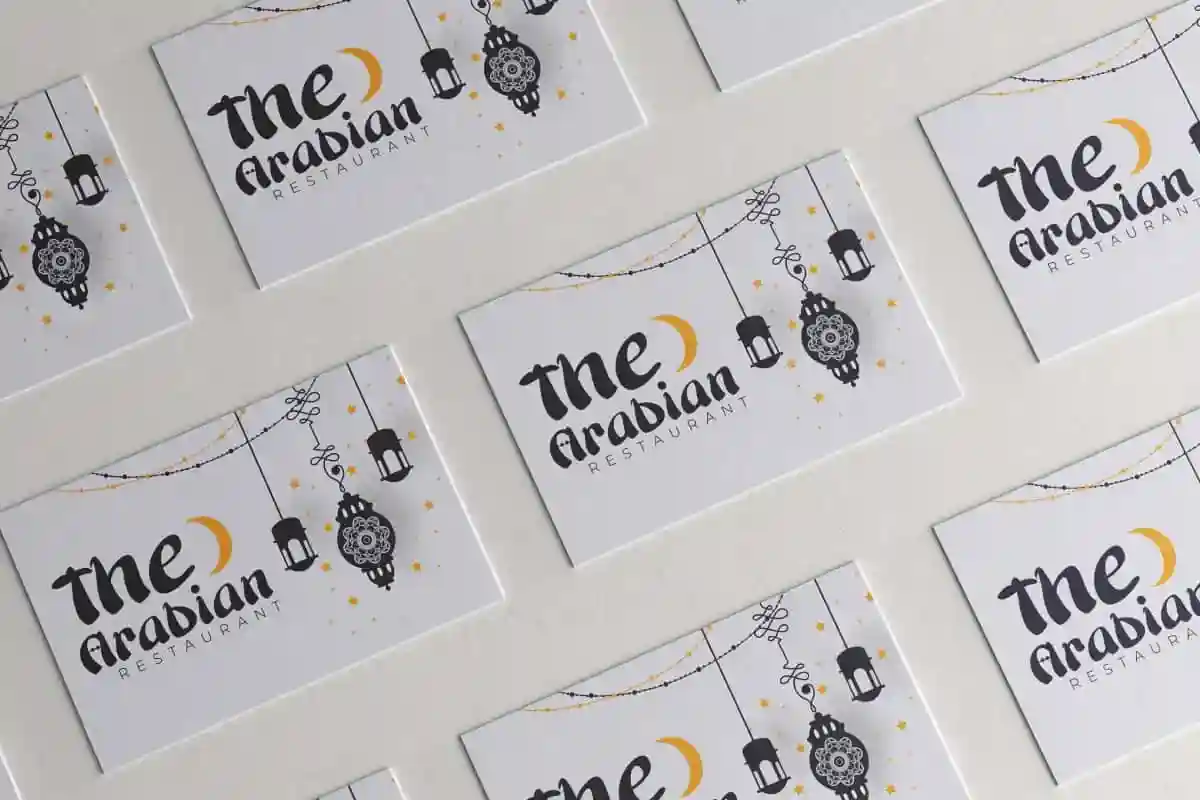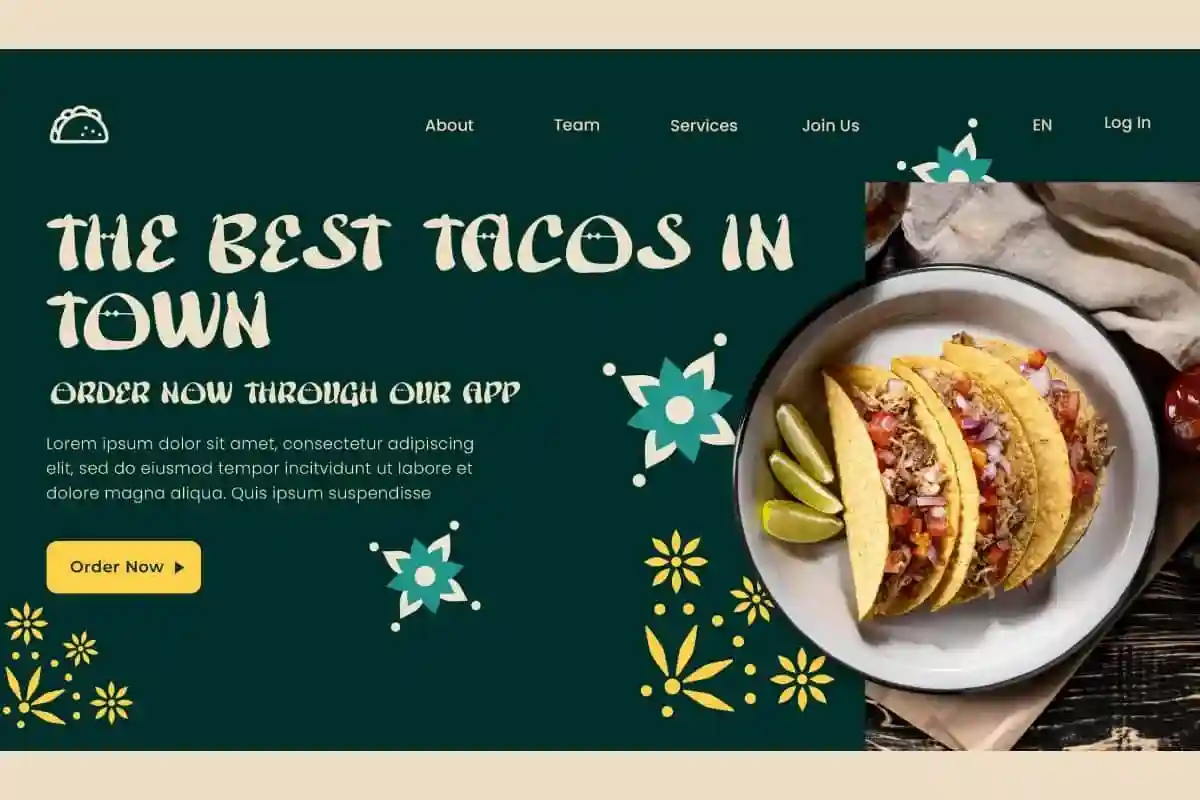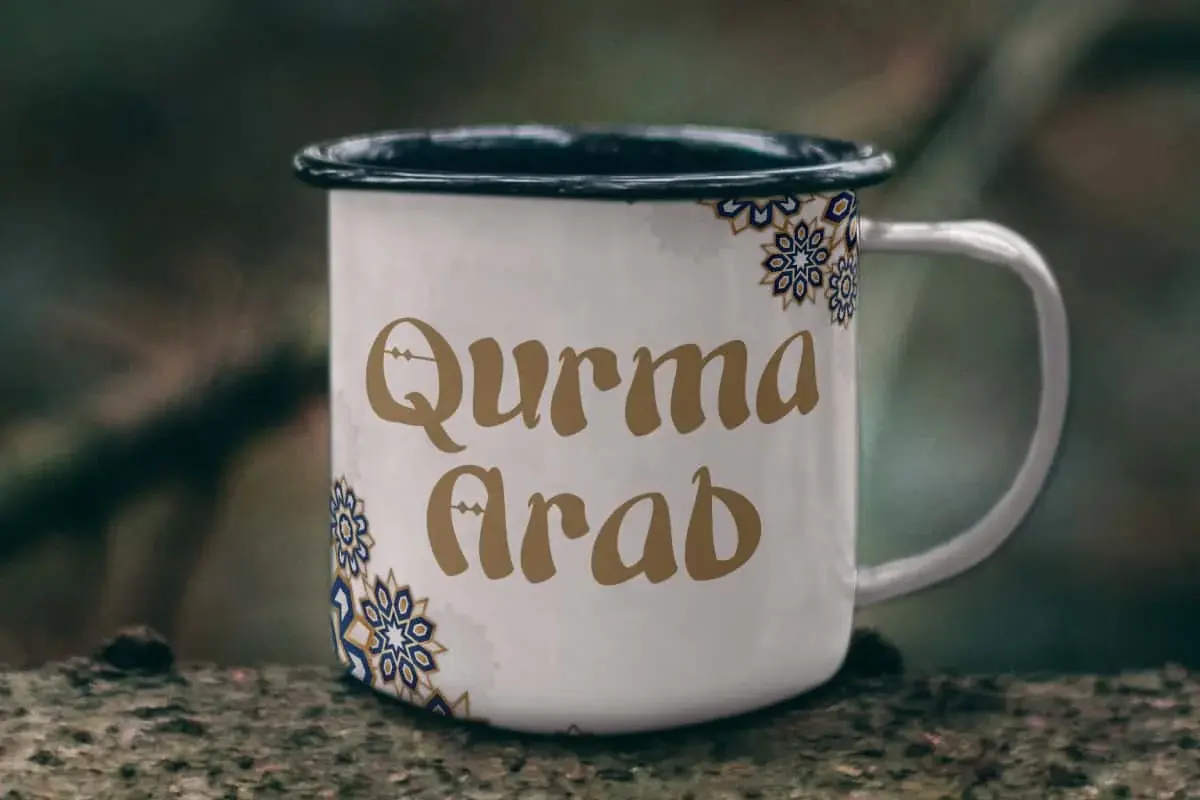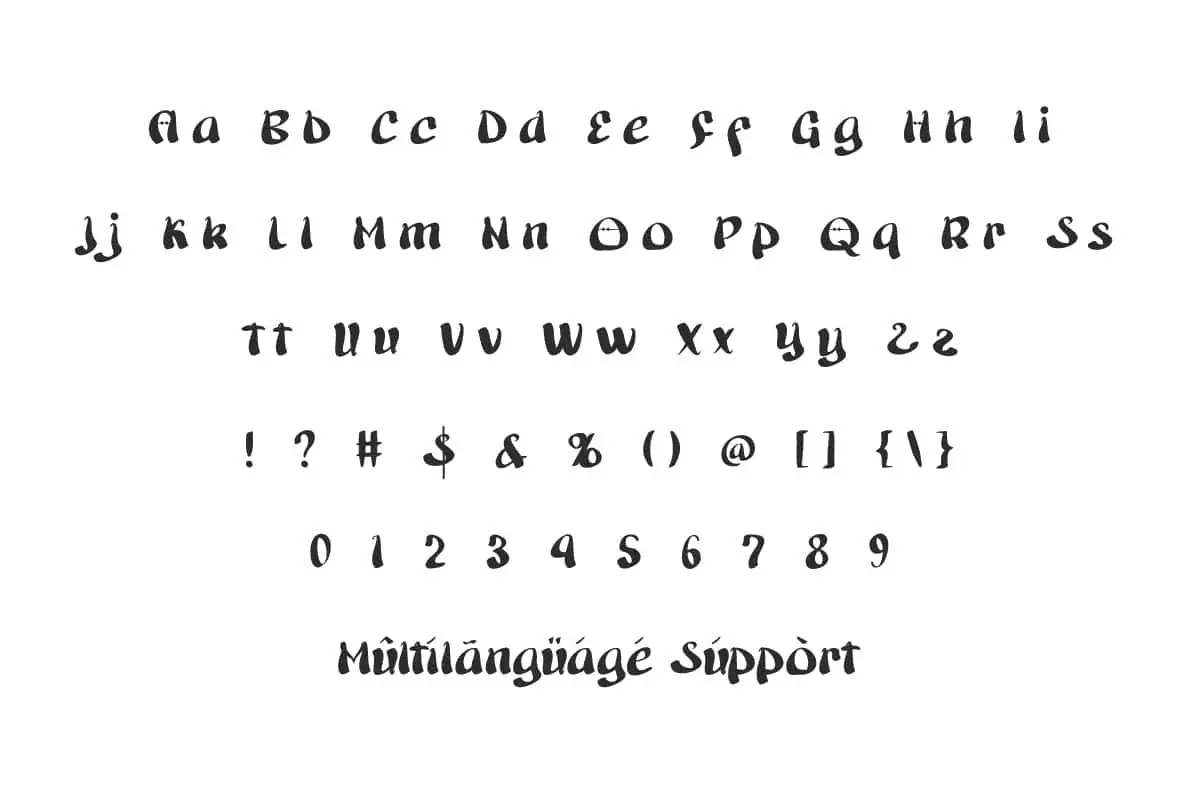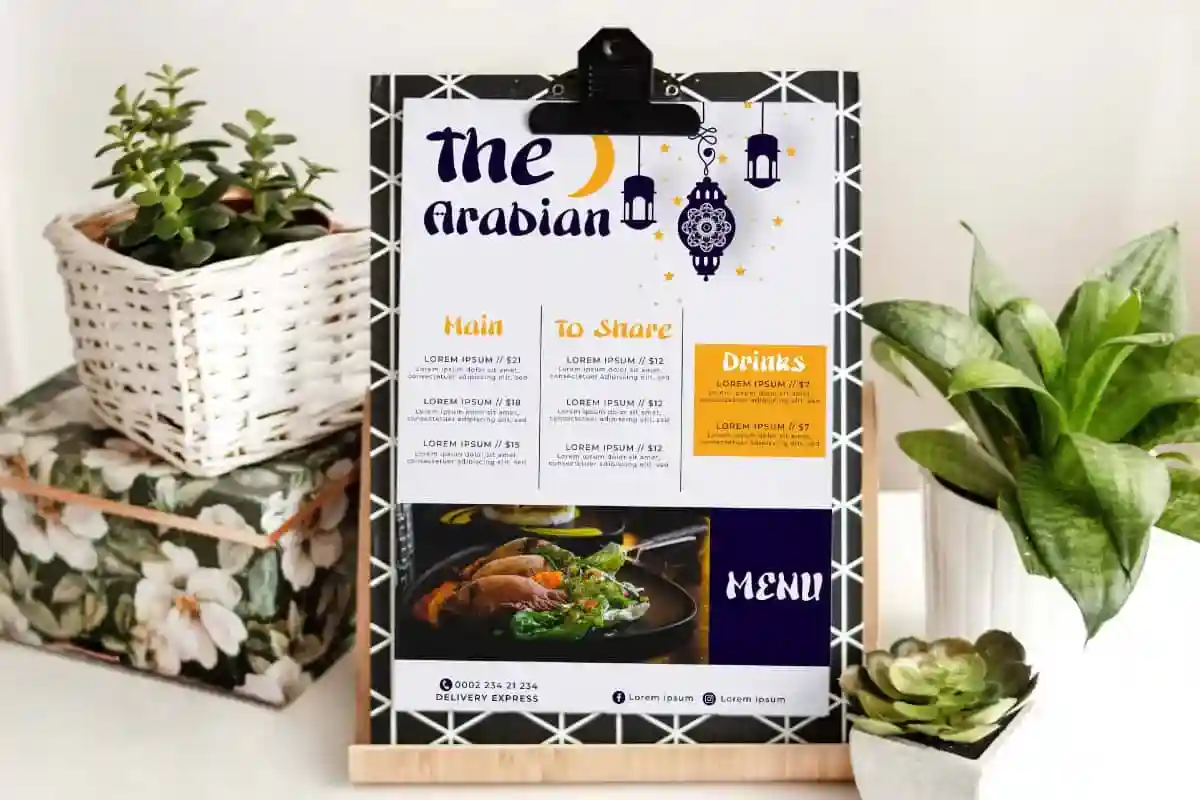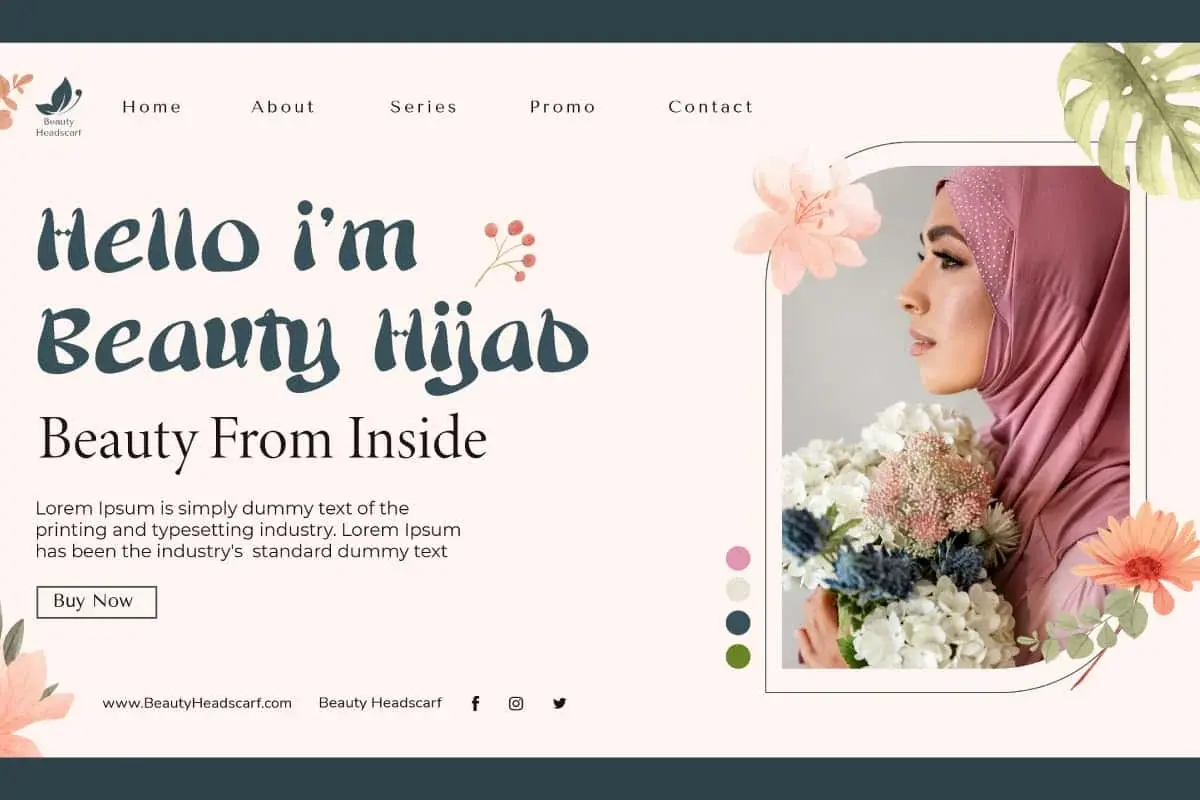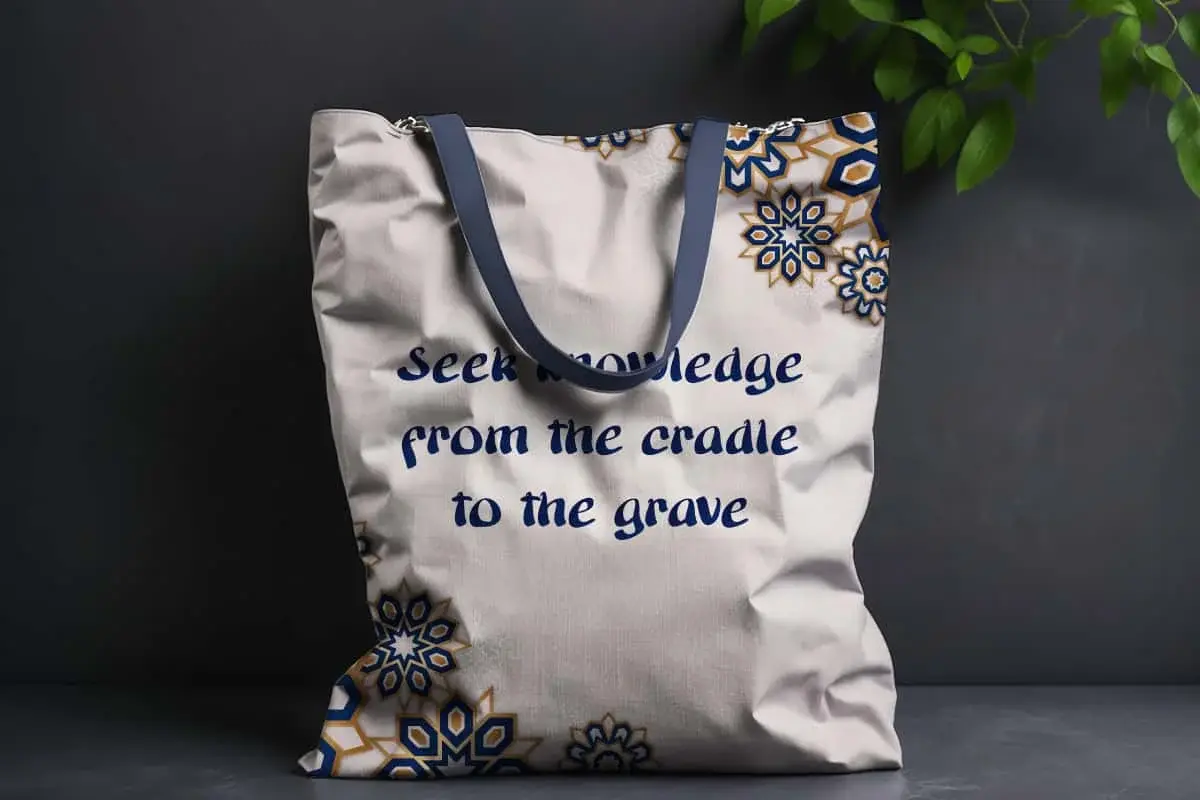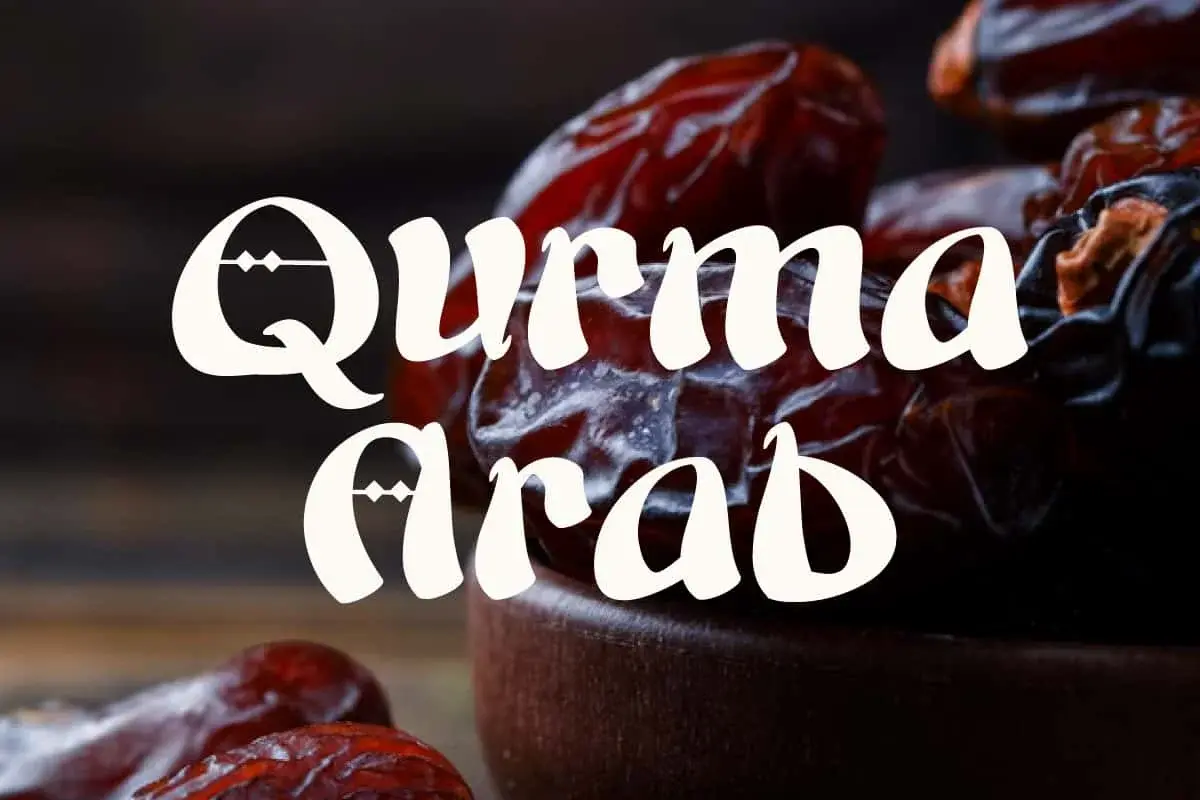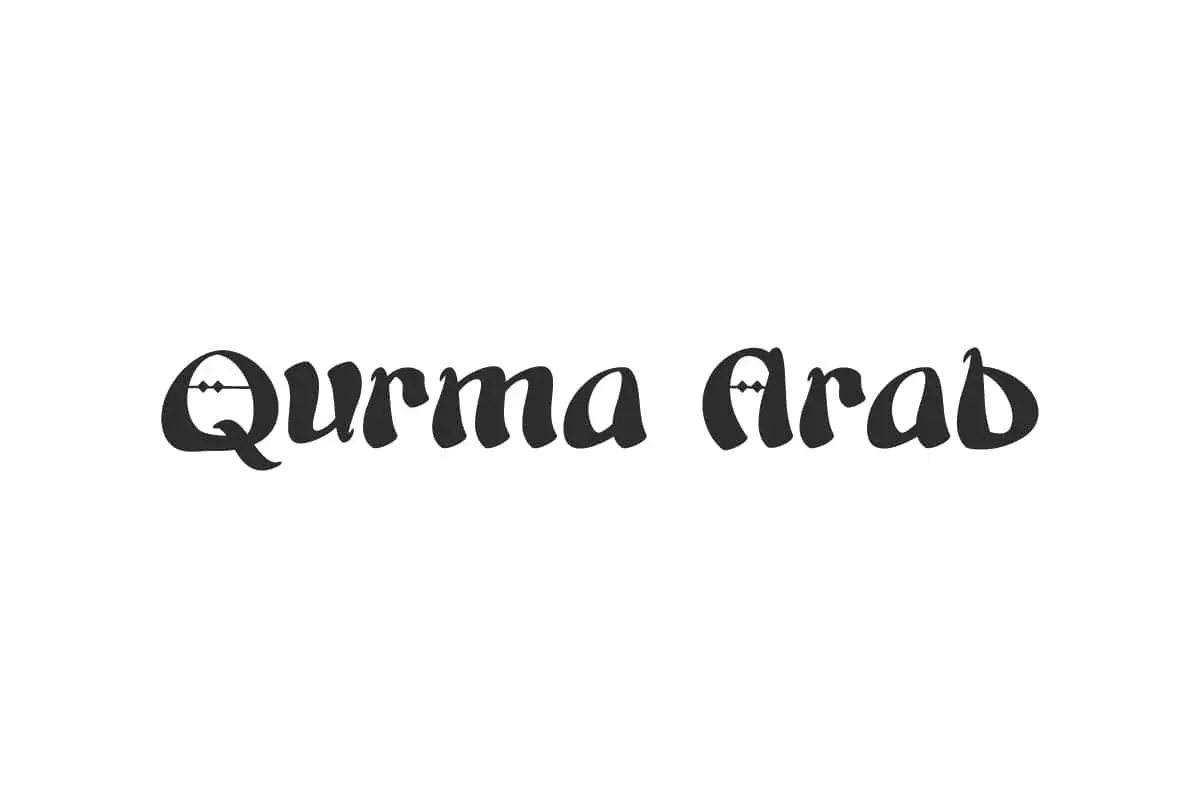
Qurma Arab Font is a fresh and trendy font inspired from Arabic writing style. The font Makes each letter feel warm and unique.
Qurma Arab Font is a trendy modern display font inspired from Arabic handwriting style. Each letter is carefully and perfectly crafted so it is sure to bring a touch of authenticity and refinement to your designs. It can be used in any work such as banners, cards, Islamic books, packaging, posters, screen print, sticker, websites and more.
Qurma Arab Font includes a complete set of Basic Uppercase and Lowercase Characters, Numbers, Punctuation Marks and Symbols. This font captures the essence of signature handcrafted authenticity, bringing a touch of playfulness and personality. It is ideal for various projects, such as author, clothing brand, crockery, fashion, food delivery, graphic design, handicraft, Islamic event, restaurant and much more.